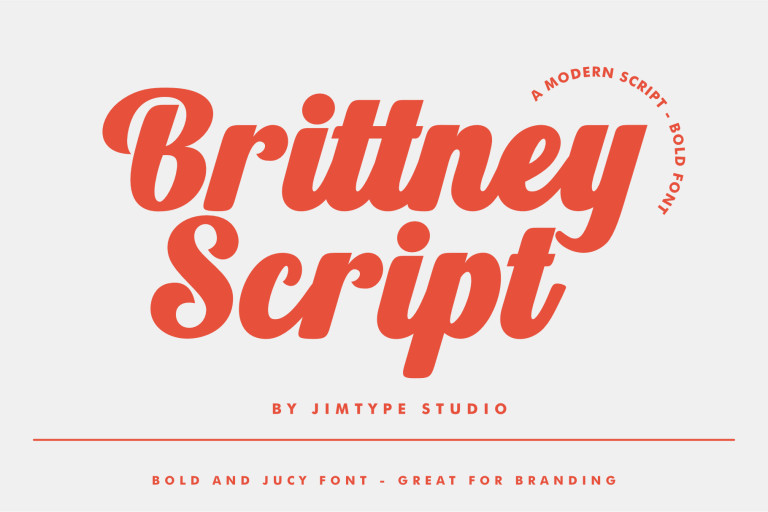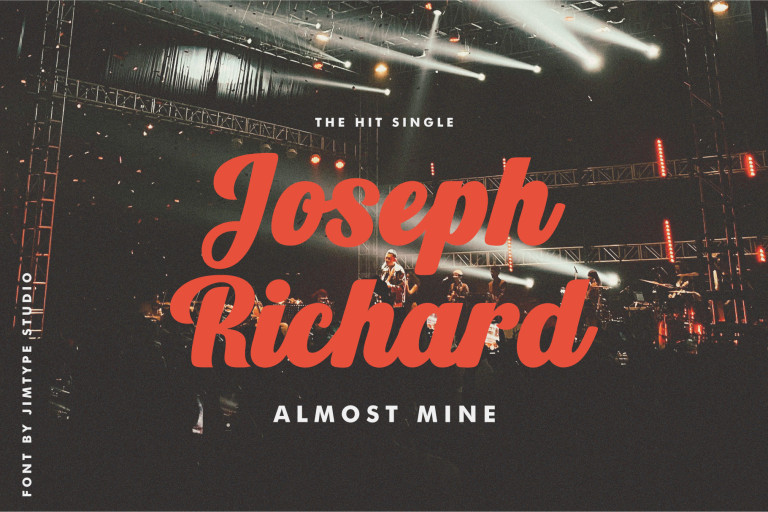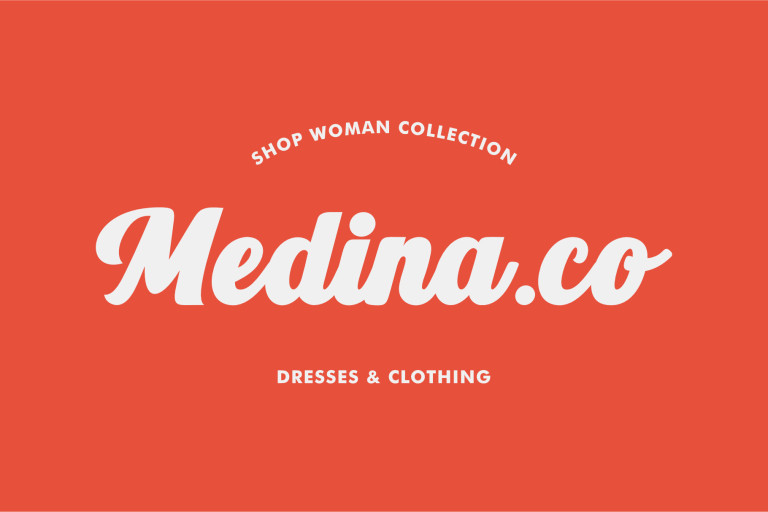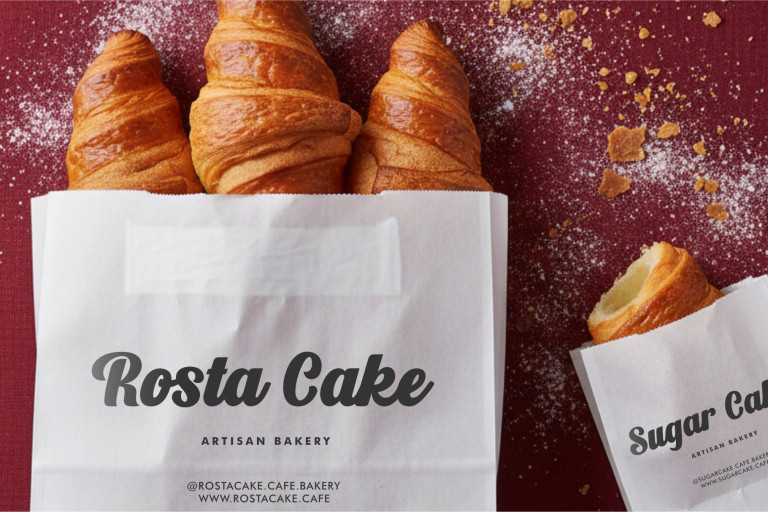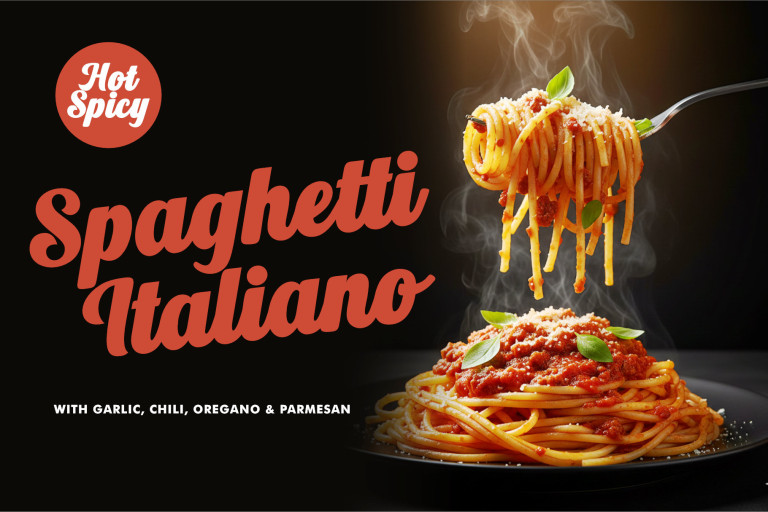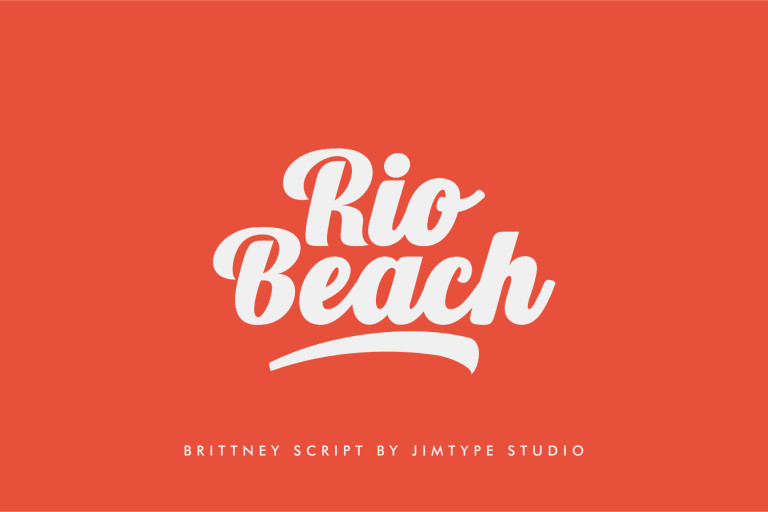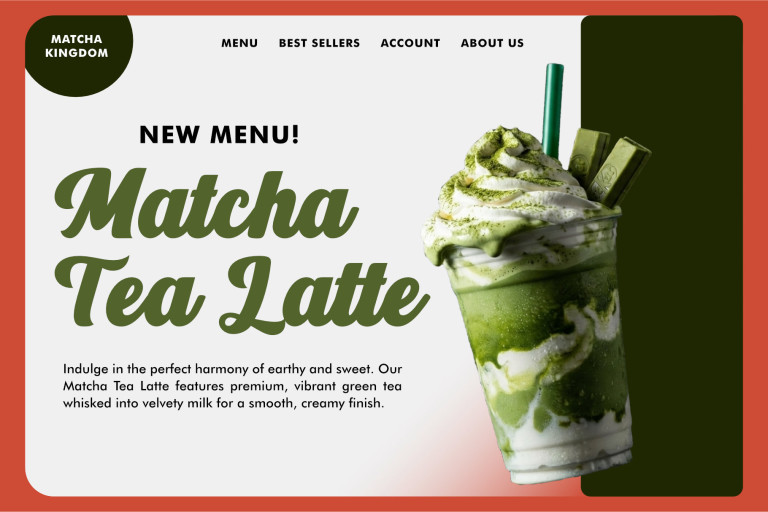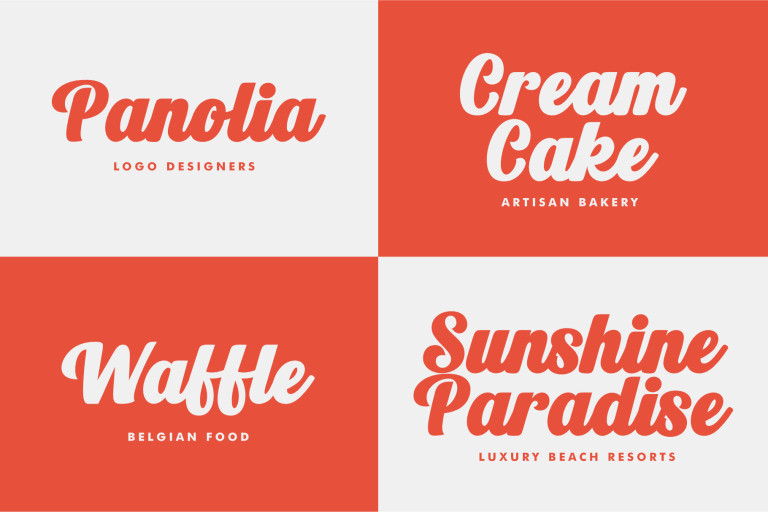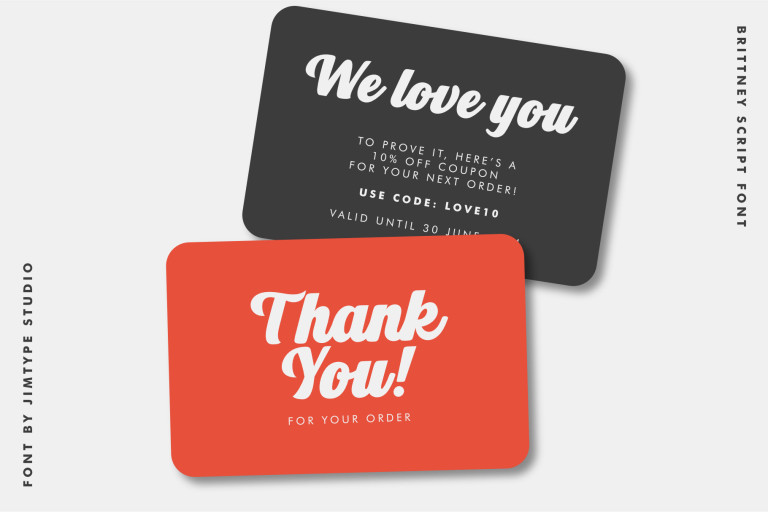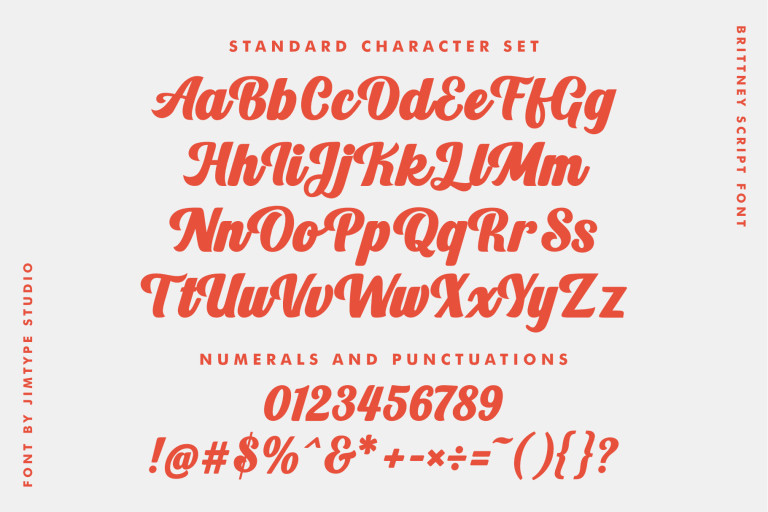
Brittney Sript - Branding Design Font from Jimtype Studio
Brittney Script
Brittney Sript – Branding Design Font from Jimtype Studio
Introducing Brittney Script, a bold, simple, and juicy script font.
A versatile script font with a standard glyph appearance, yet versatile enough to enhance your designs.
Brittney Script is perfect for logos, branding designs, websites, social media, headers, posters, and many other ways to create artwork with this font.\